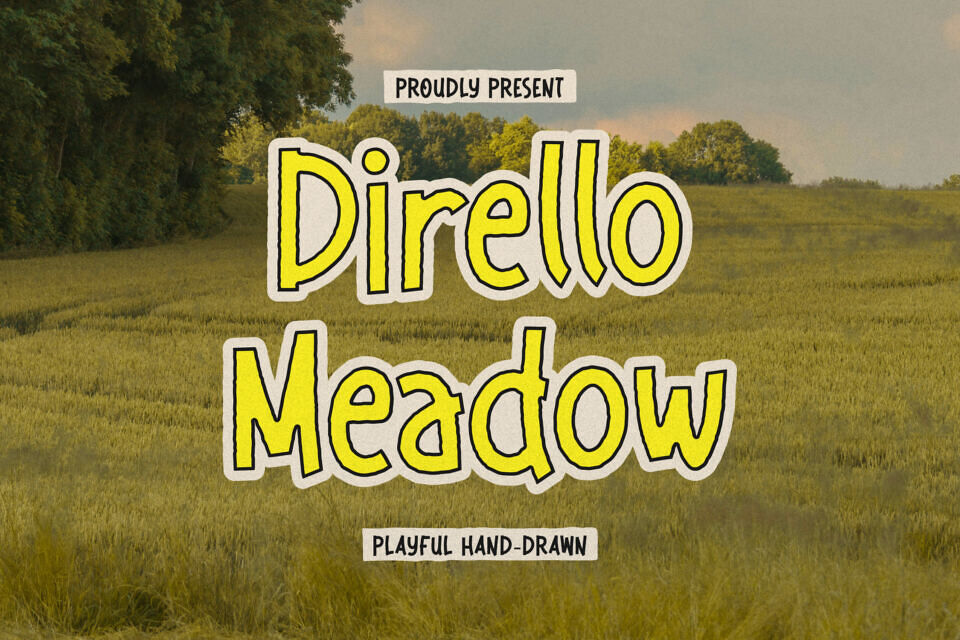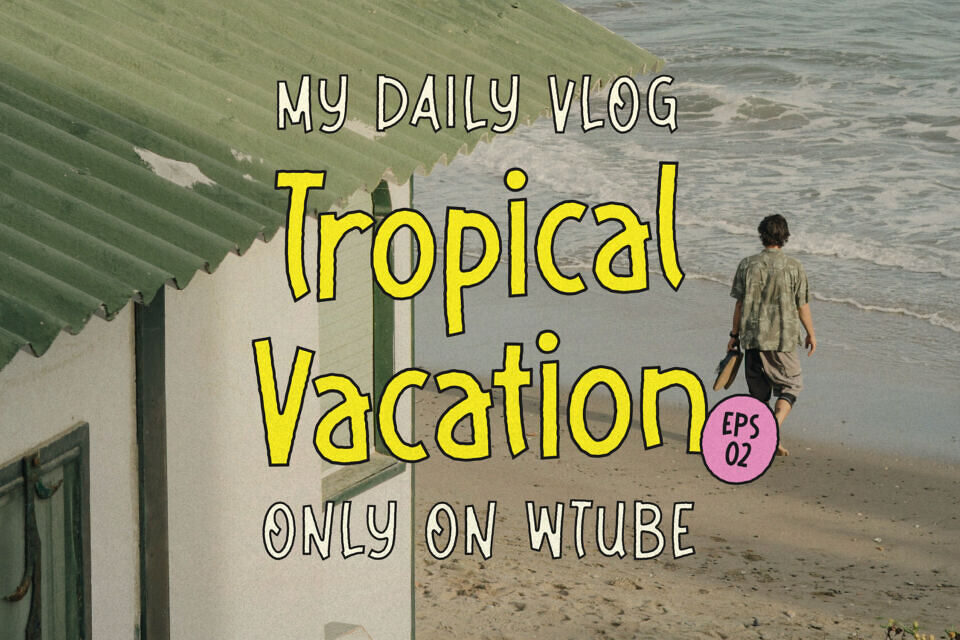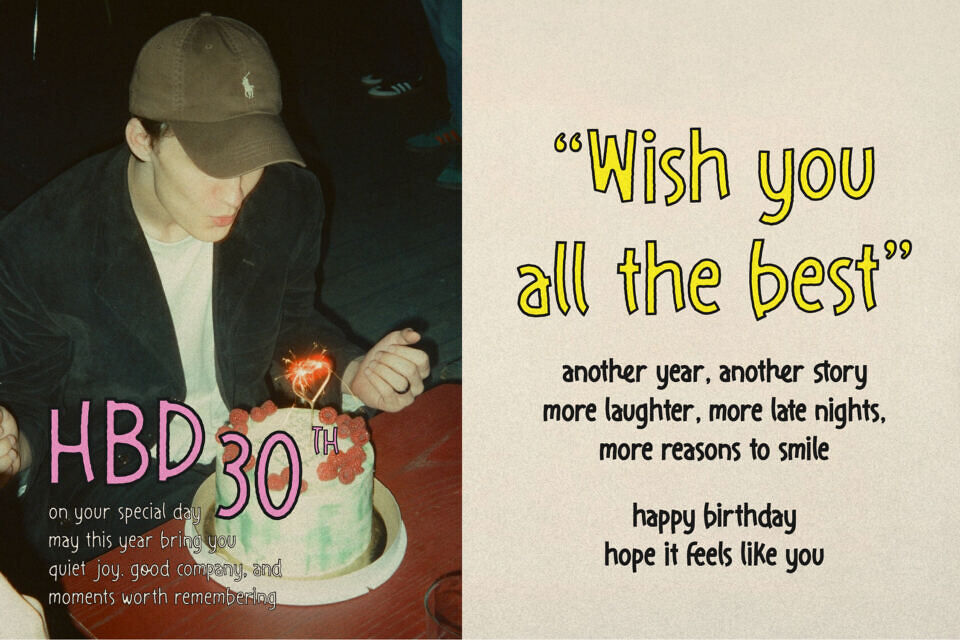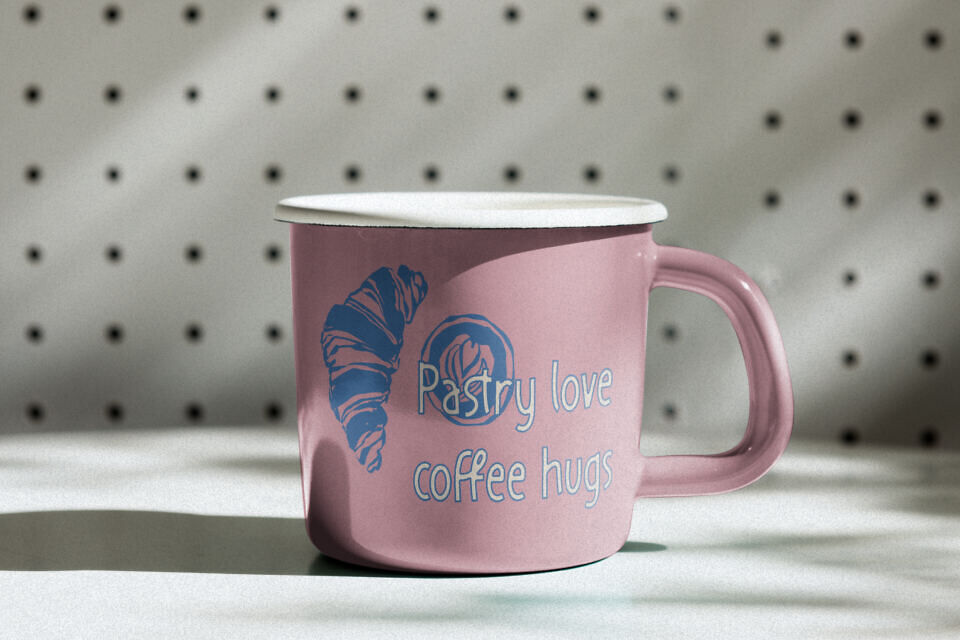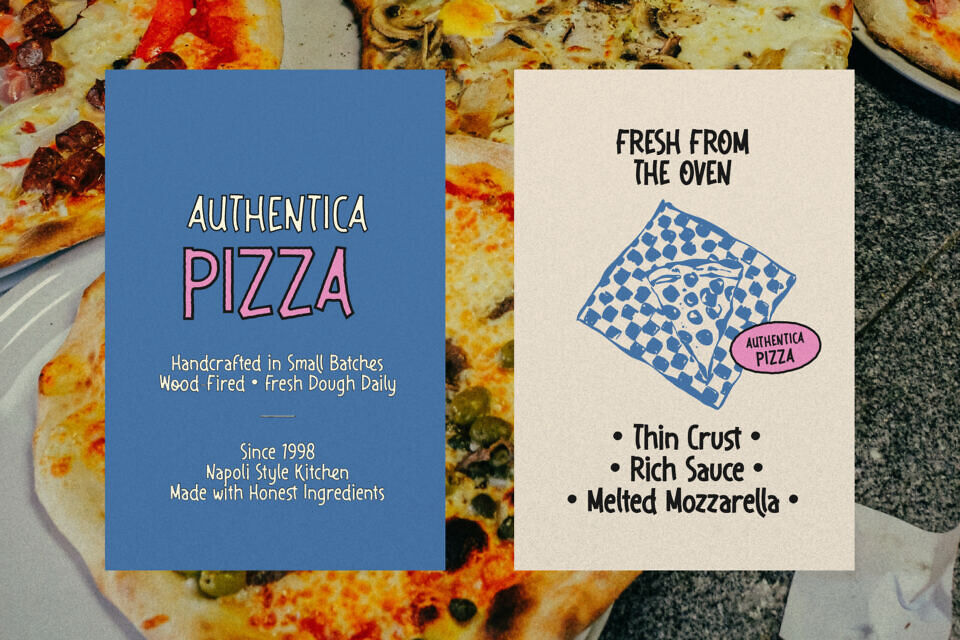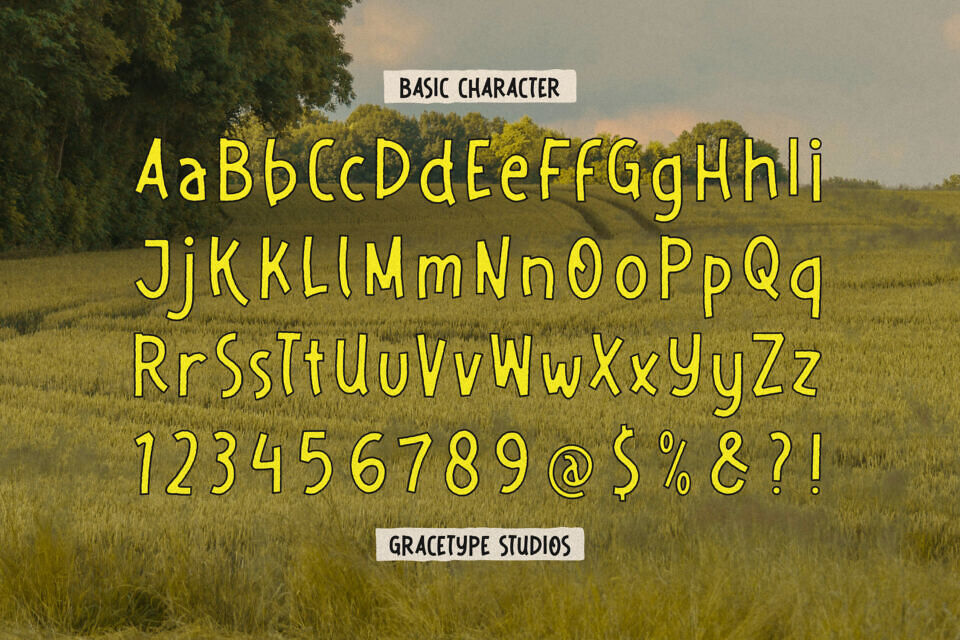
Radiate cheer and nostalgia with Dirello Meadow, a playful hand-drawn font designed for projects that value a friendly, human touch. This charming display typeface features tall, slightly irregular letterforms with a “bubble-block” structure and a subtle inner shadow that adds immediate pop to any layout.
With its casual weight and “retro-summertime” aesthetic, Dirello Meadow is the premier choice for independent grocery branding, children’s book titles, organic snack packaging, and high-impact “cottage-core” social media headers.